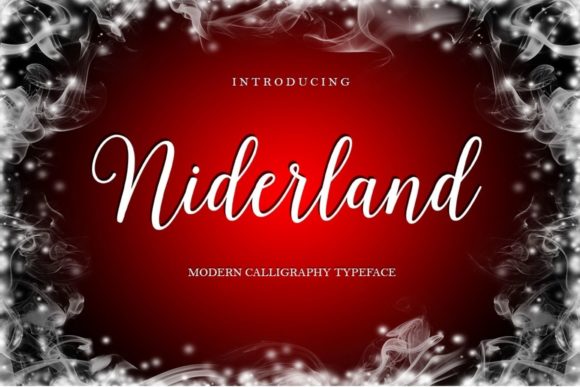
Dive into the world of captivating calligraphy with Niderland Script Font, a modern script typeface that exudes elegance and charm. Handcrafted by Stellar Studio, this font is a beautiful blend of handwritten artistry and contemporary style. Its flowing lines and delicate curves add a touch of sophistication and personality to any project.
With Niderland Script Font, your creativity knows no bounds. Unleash your imagination and use it to design captivating logos that leave a lasting impression, create unique T-shirts that reflect your style, or craft product packaging that stands out on the shelves. Let your wedding invitations shimmer with grace, and make your blog posts and social media content pop with a touch of flair.
Niderland Script Font's versatility knows no limits. It seamlessly blends with various design aesthetics, from minimalist and chic to playful and whimsical. Whether you're creating branding materials, stunning greeting cards, or eye-catching posters, this font is your perfect companion.
Experience the allure of Niderland Script Font and elevate your designs to new heights. Its charm and elegance will captivate your audience, leaving them spellbound by your creations. Embrace the beauty of handwritten artistry and see your designs blossom with Niderland Script Font.